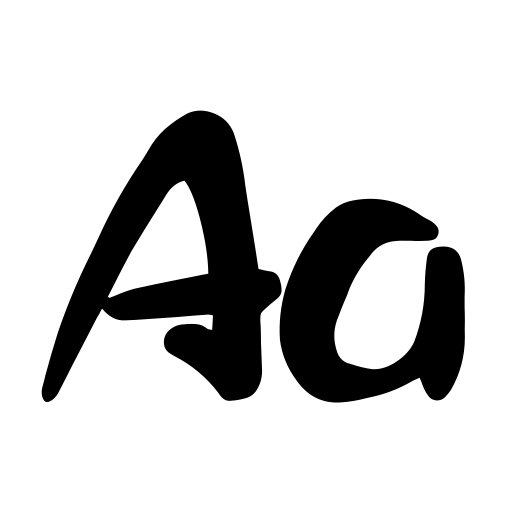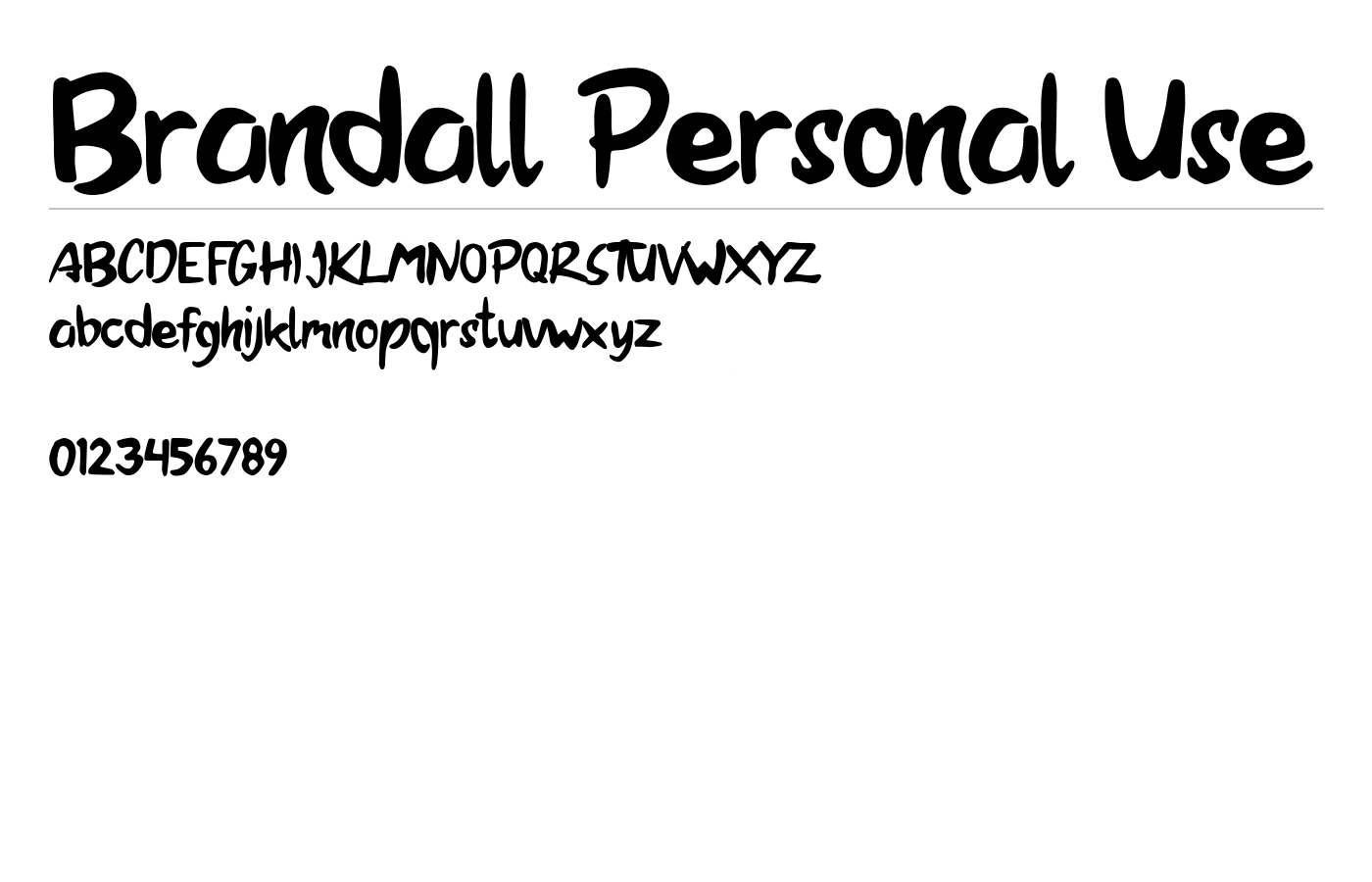
Brandall Personal Use is a casual, handwritten sans serif font with a playful and friendly vibe. Its rounded, slightly irregular letterforms and moderate weight give it an approachable, informal feel, making it ideal for creative projects, branding, and designs that aim to connect on a personal level. This font works well in logos, packaging, and headlines where a warm, human touch is needed.
Brandall Personal Use Font